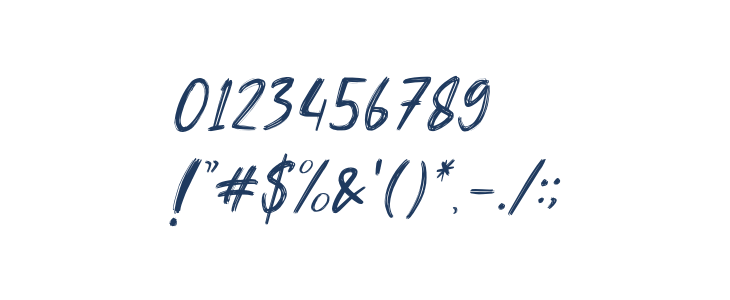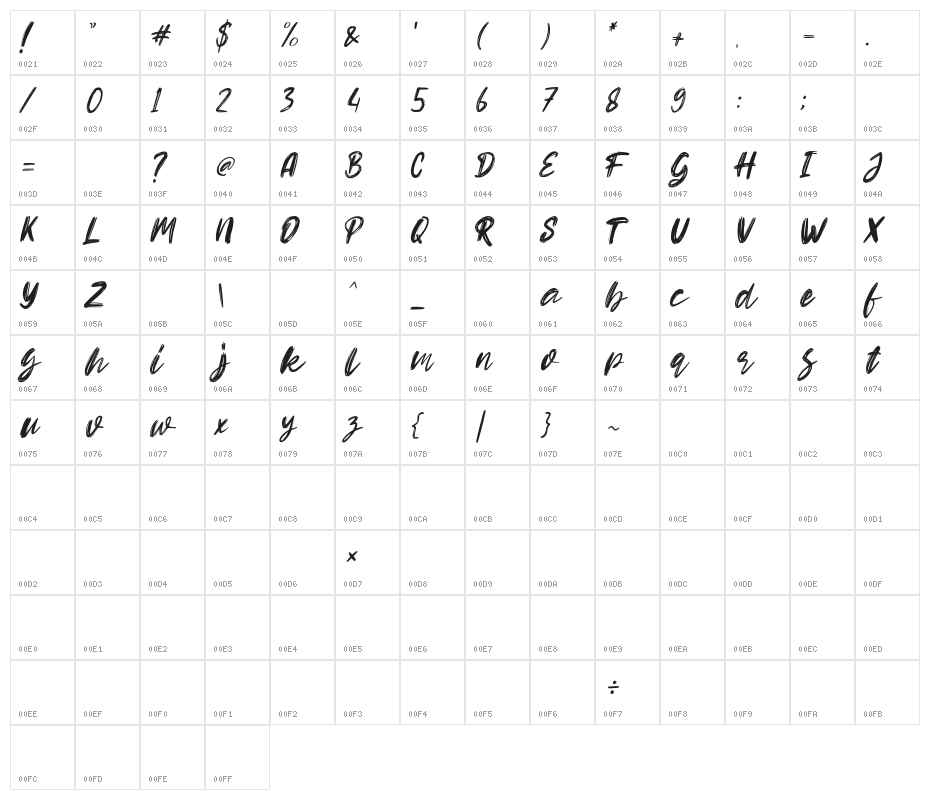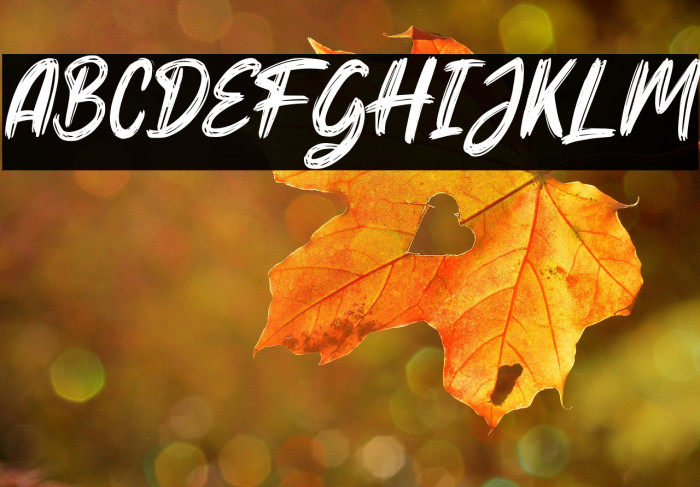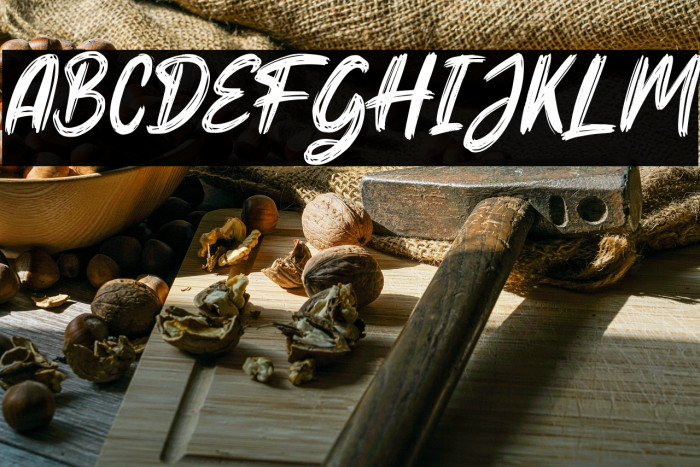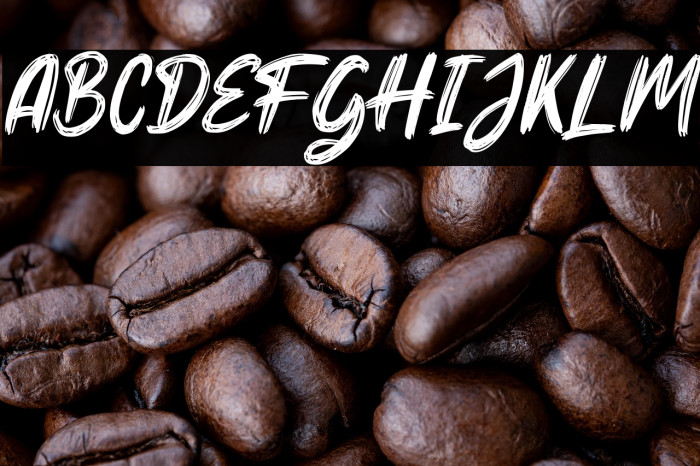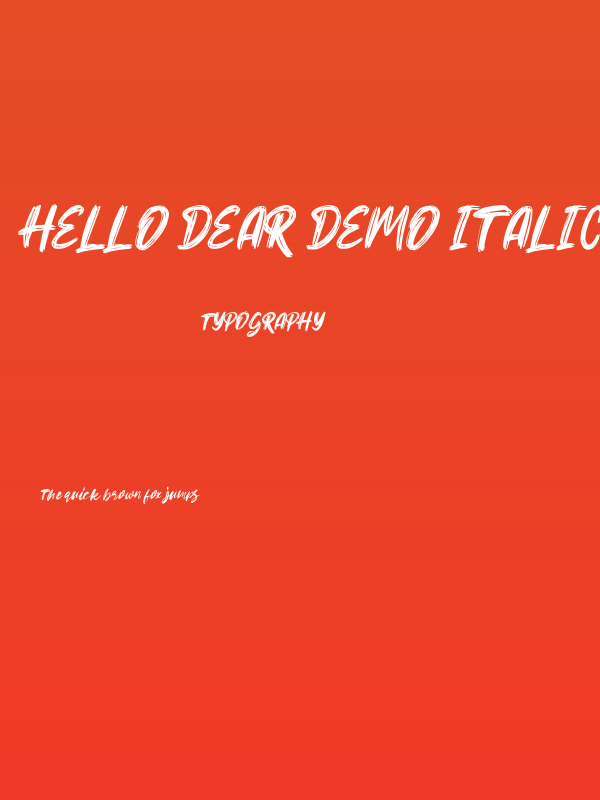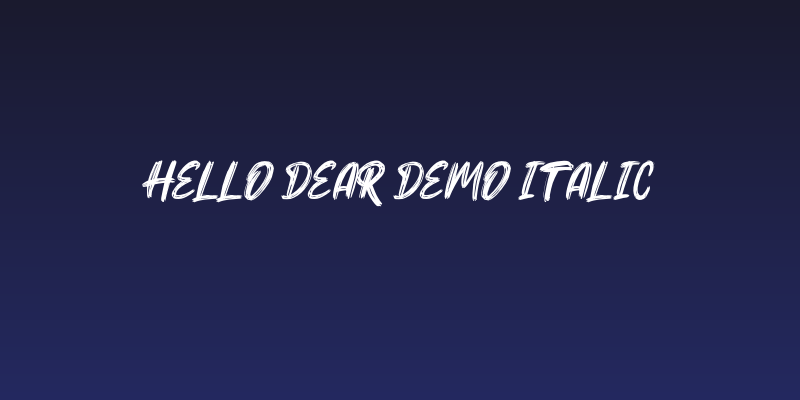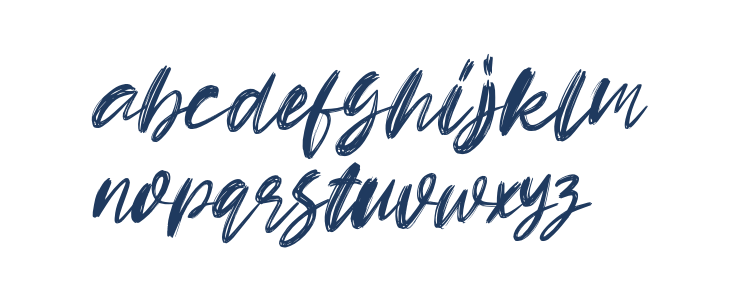
Hello Dear Demo Italic Font
Hello Dear Demo Italic Description
This font exudes a dynamic and expressive style, characterized by its bold, brush-like strokes that convey a sense of movement and energy. The letters are italicized, giving them a forward-leaning posture that enhances their fluidity and grace. The uppercase and lowercase characters maintain a consistent style, with a slightly rough texture that adds a handcrafted feel. The numerals and special characters are equally expressive, maintaining the same bold and artistic flair. This font is perfect for projects that require a personal touch or a creative, artistic vibe.
| Use Case | Logos, Headlines, Artistic designs |
| Proposed Projects | Ideal for creative projects such as posters, branding, invitations, and artistic designs. |